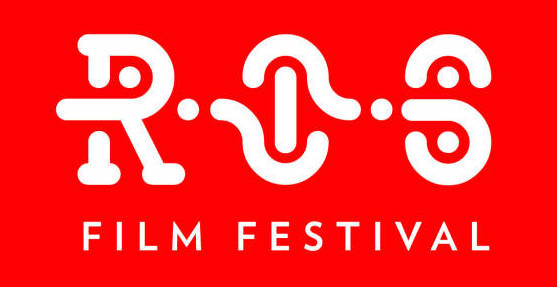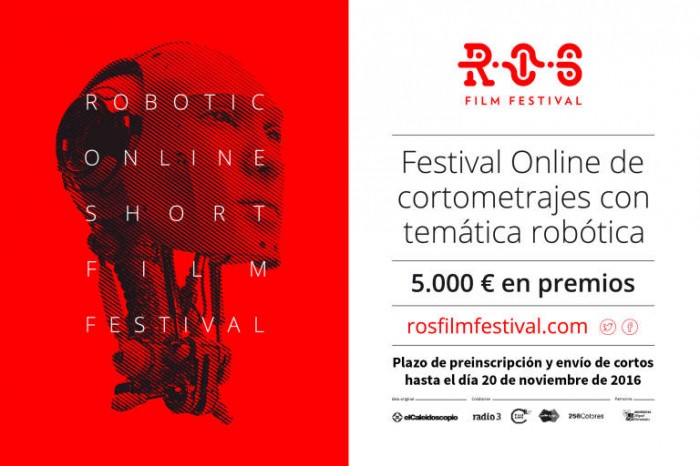
What a clever design! I love every flowing glyph but I, Y and 2 are my favourites for today... 10/10
When i see this new beauty, i wish you have more time to make grow your fantastic Fontstruct field as it deserves.
Very stylish and flowing - well worth the time invested. 10/10
Adventurous and very effective!
Congratulations! FontStruct Staff have deemed your FontStruction worthy of special mention. “Interlock” is now a Top Pick.
A 'Wow'struct :)
I love this kind of experiments! My 10 is 4U!
extreme aesthetic perfection — 10/10.
Ah creativity—I think that if you're creating this, then this is what you should be doing, even if it takes a while to finish. :) This is unique.
Very Cool! great idea love it
Superb. Has real character...
This is amazing! Some lower case letters dont work.
This is awesome! I made a font called "Interlocking" before I saw this. I hope you don't think I copied you.
Your work is always innovative and inspirational. Sorry for any future unintentional similarity. Can't help absorbing it all.
Dear compañero: Is this your font in use? I found it in a recent film festival info from Elche (Spain). R and O are identical, but S is a bit different...
Looks a whole lot like it. The R and the O are mine. The S looks like it is based on my period or colon.
OMG!!! ROSFF COPIED THIS AWESOME FONT WITHOUT PERMISSION AND CHANGED THE S SO IT WOULD BE HARDER TO KNOW THEY DID IT! OMG COPYCAT COULDN'T THINK OF ANYTHING ORIGINAL SO THEY WERE RUDE! CMUNK I AM SO SORRY THEY COPIED YOU!